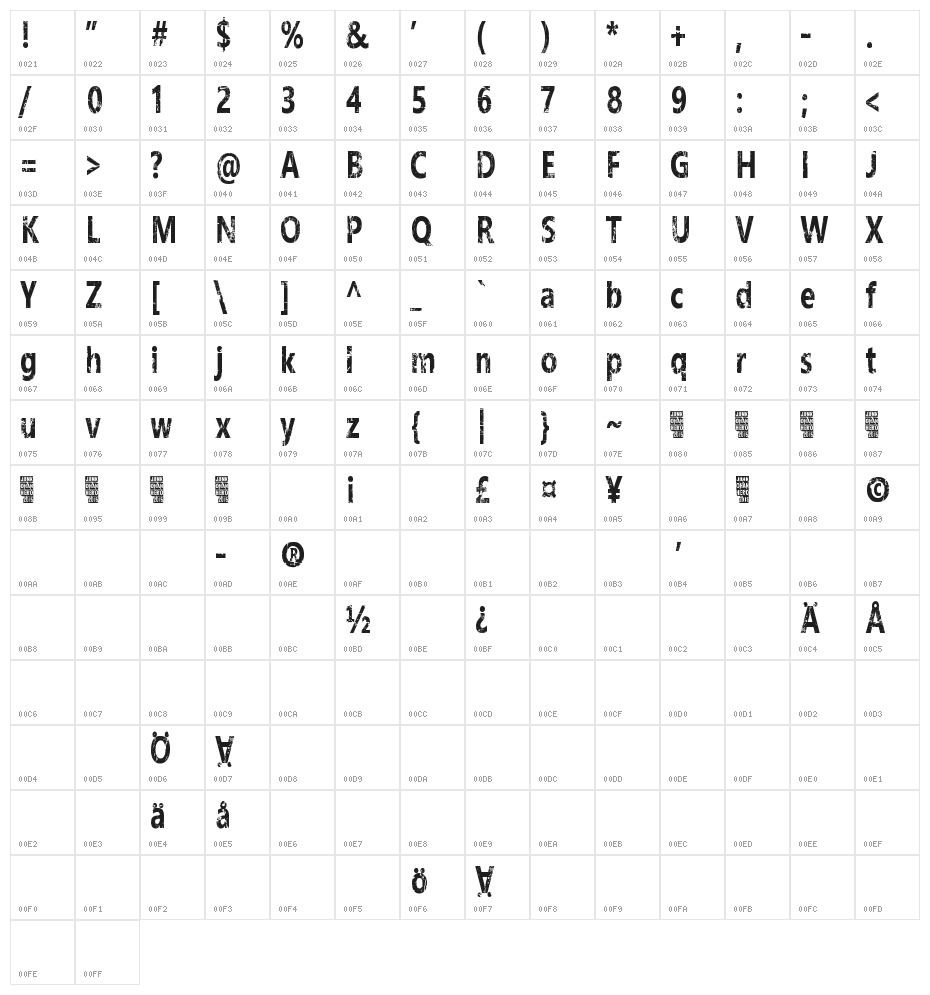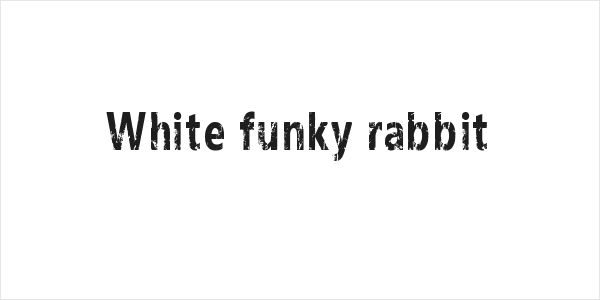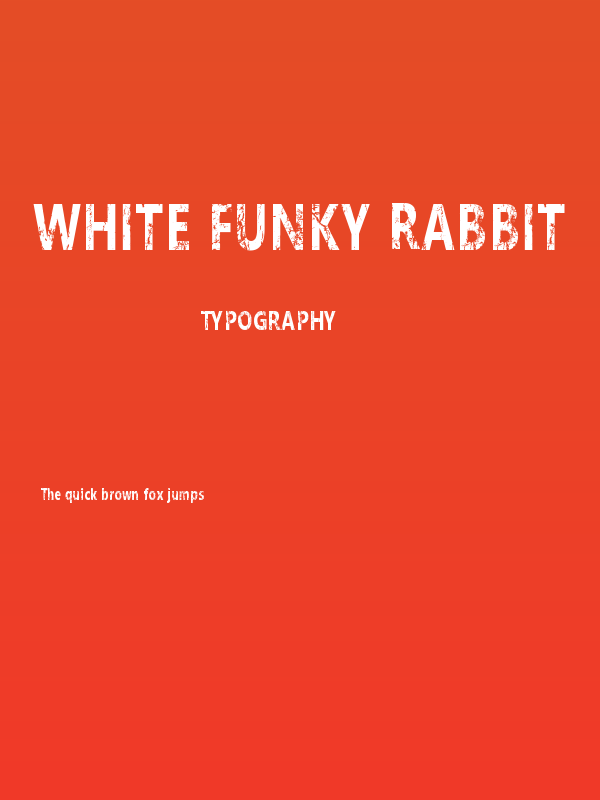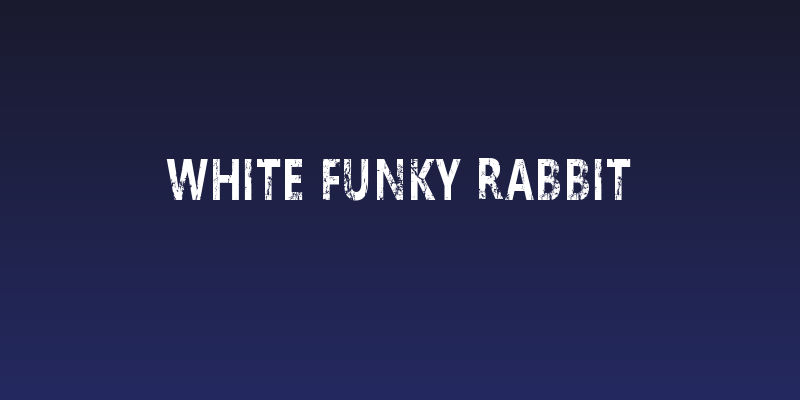
White funky rabbit Font
White funky rabbit Description
This font features a bold, distressed style with a grunge texture that gives it a rugged, worn appearance. The uppercase and lowercase letters maintain a consistent weight, with rough edges and a textured surface that adds character. The numbers and special characters follow the same design, making the font cohesive and visually striking. Its bold presence and unique texture make it ideal for projects that require a strong, impactful look. The font's distressed style is reminiscent of vintage or industrial themes, adding a sense of history and depth to any design.
| Proposed Projects | Ideal for posters, album covers, branding, and any design needing a vintage or industrial feel. |